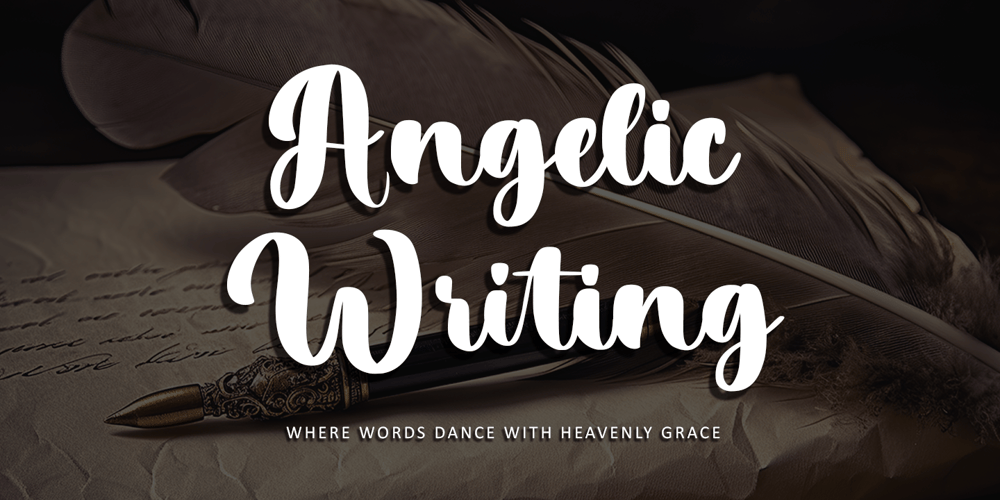
Angelic Writing Font Family was designed by Thomas Aradea and published by Letterara. Angelic Writing contains 2 styles and family package options. Introducing “Centralwell,” a captivating handwritten font that exudes elegance and charm. With its fluid strokes and impeccable letterforms, this font adds a personal touch and authenticity to your projects. Whether for branding, packaging, invitations, website, posters, logos, advertising, or any creative endeavor requiring a dash of class, “Centralwell” elevates your designs with its enchanting allure. Embrace the handwritten beauty and timeless charm of “Centralwell,” leaving a lasting impression with every stroke.